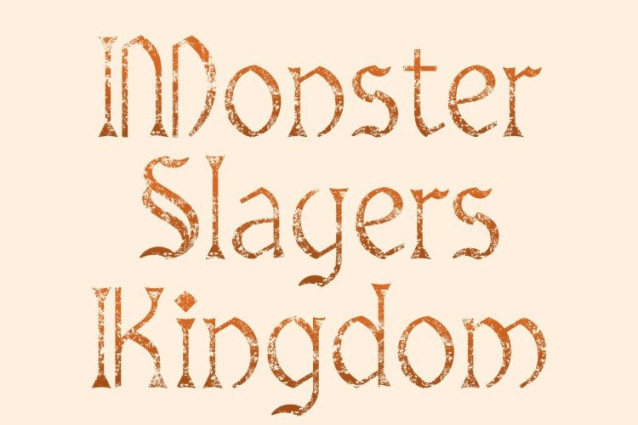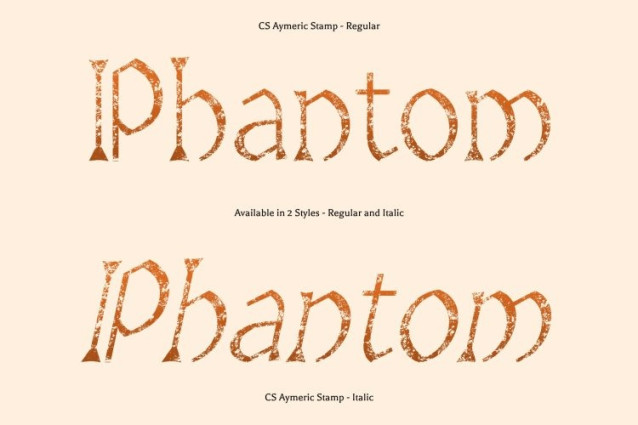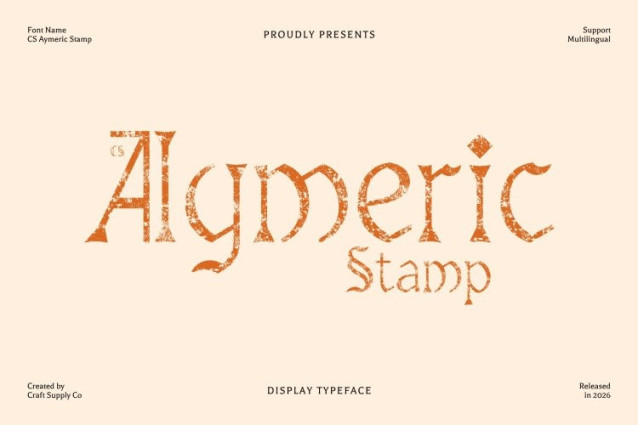
CS Aymeric Stamp Font
CS Aymeric Stamp Font This is a gothic display font inspired by classic medieval lettering, defined by tall, narrow proportions and sharp ornamental details. Its strong vertical rhythm and dramatic silhouette create a refined yet commanding presence. Enhanced with a stamped texture, the font gains a subtle distressed finish that evokes antique printing techniques and historical craftsmanship.
Dramatic Yet Refined Visual Presence
Sharp points, elongated strokes, and textured edges work together to deliver an intense yet elegant visual experience. The stamp effect softens the rigidity of the gothic forms, adding depth, character, and a slightly worn appearance bringing authenticity and old-world charm without sacrificing clarity or sophistication.
Perfect for Artistic and Historical Themes
This is ideal for designs that lean into narrative, emotion, and atmosphere. It shines in book covers, theater posters, historical fiction titles, album artwork, and editorial layouts where a sense of heritage and drama is essential. The stamped texture reinforces a vintage mood, making each composition feel expressive and timeless.
Bold Identity with Vintage Impact
With its powerful gothic personality and textured, aged finish, this is a strong choice for branding with an artistic, cultural, or historical focus. Whether used for premium publications, gallery branding, or immersive storytelling visuals, this font delivers lasting impact through a refined balance of drama, elegance, and vintage authenticity.